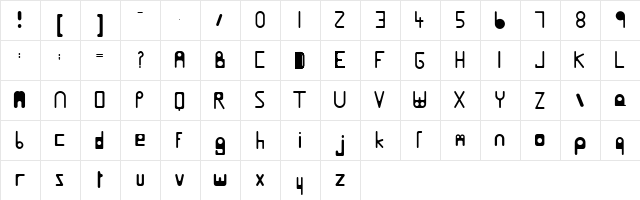
HelenBrownSolid Regular Font Preview
HelenBrownSolid Regular
HelenBrownSolid Regular Font Details
| Foundry | Bradley Consulting Ltd |
| Designer | Robert Walsh |
Design Context for HelenBrownSolid Typeface
HelenBrownSolid offers clean, dependable letterforms without strong stylistic allegiance, making it a practical choice for designers who need flexibility.